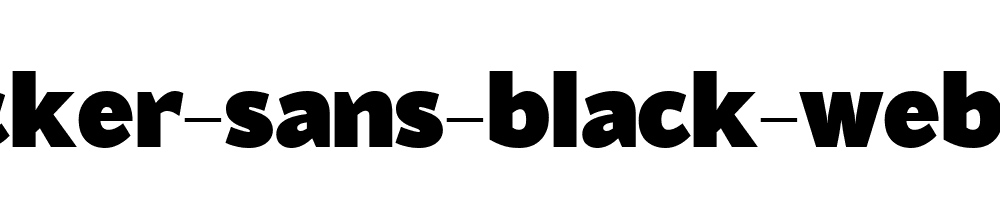
About blacker-sans-black-webfont
Blacker Sans Black Webfont is a stunning font with a bold and impactful presence, designed to stand out in any graphic design project. The font features a clean and modern structure with sharp edges and strong lines that convey a sense of strength and stability. The closed counters and thick stems give the font a solid and robust appearance, while the elegant brackets add a touch of sophistication. The font’s neutral and expressive nature makes it perfect for a wide range of design applications, from sleek corporate branding to eye-catching headlines.
This elegant and rugged font exudes a serious yet friendly vibe, making it versatile for various design needs. The font’s organic and technical feel adds a unique touch to any project, striking a balance between classic and progressive design styles. With its daring yet familiar characteristics, Blacker Sans Black Webfont manages to be both loud and discreet at the same time, making it suitable for branding, packaging, and editorial design.
Black Sans Black Webfont strikes the perfect balance between cold and warm tones, with its sleek design and inviting curves. The font’s smooth and flowing appearance creates a natural and harmonious aesthetic, making it a great choice for projects that require a touch of elegance and sophistication. Whether you’re looking to make a bold statement or add a subtle touch of style, Blacker Sans Black Webfont is sure to leave a lasting impression.